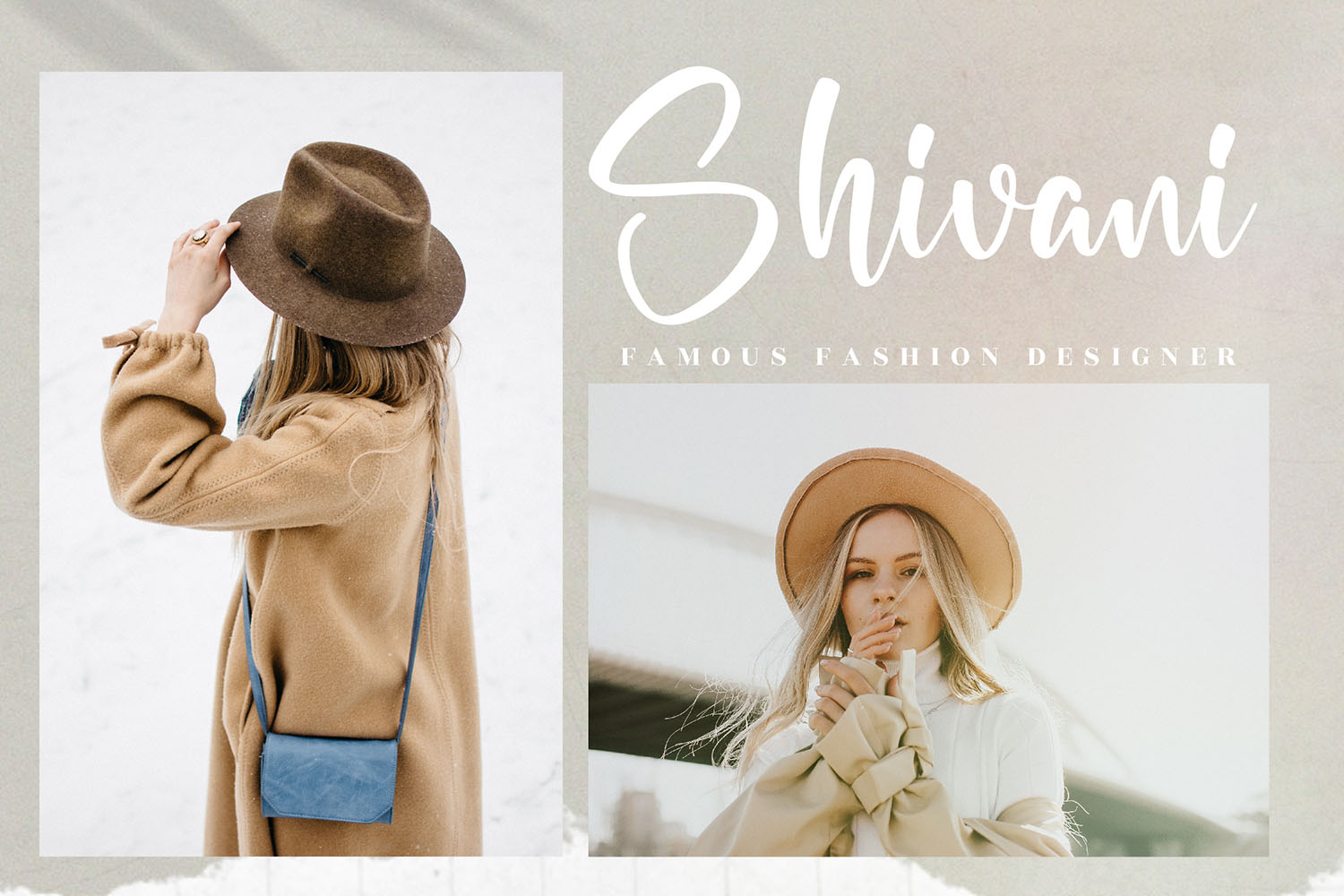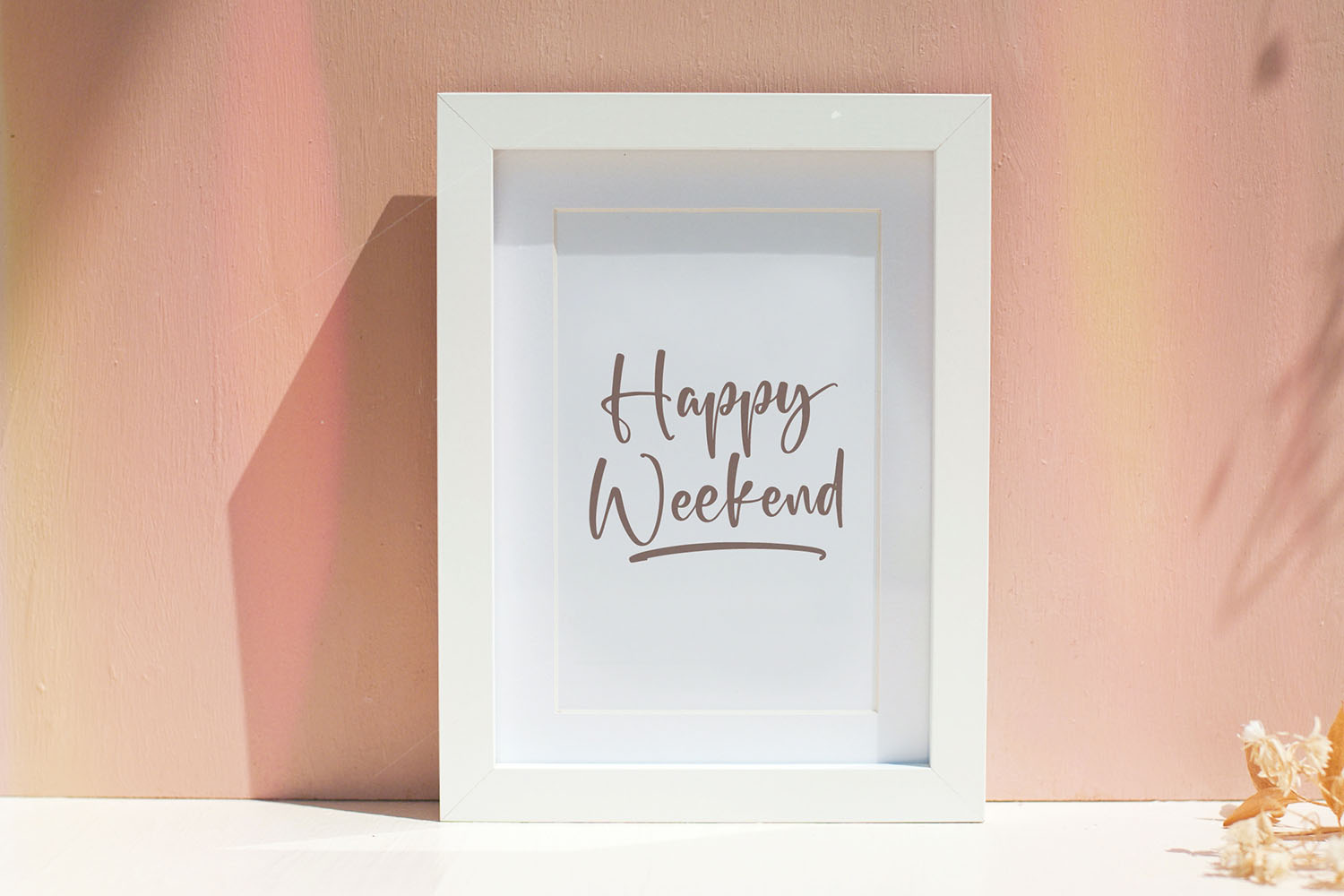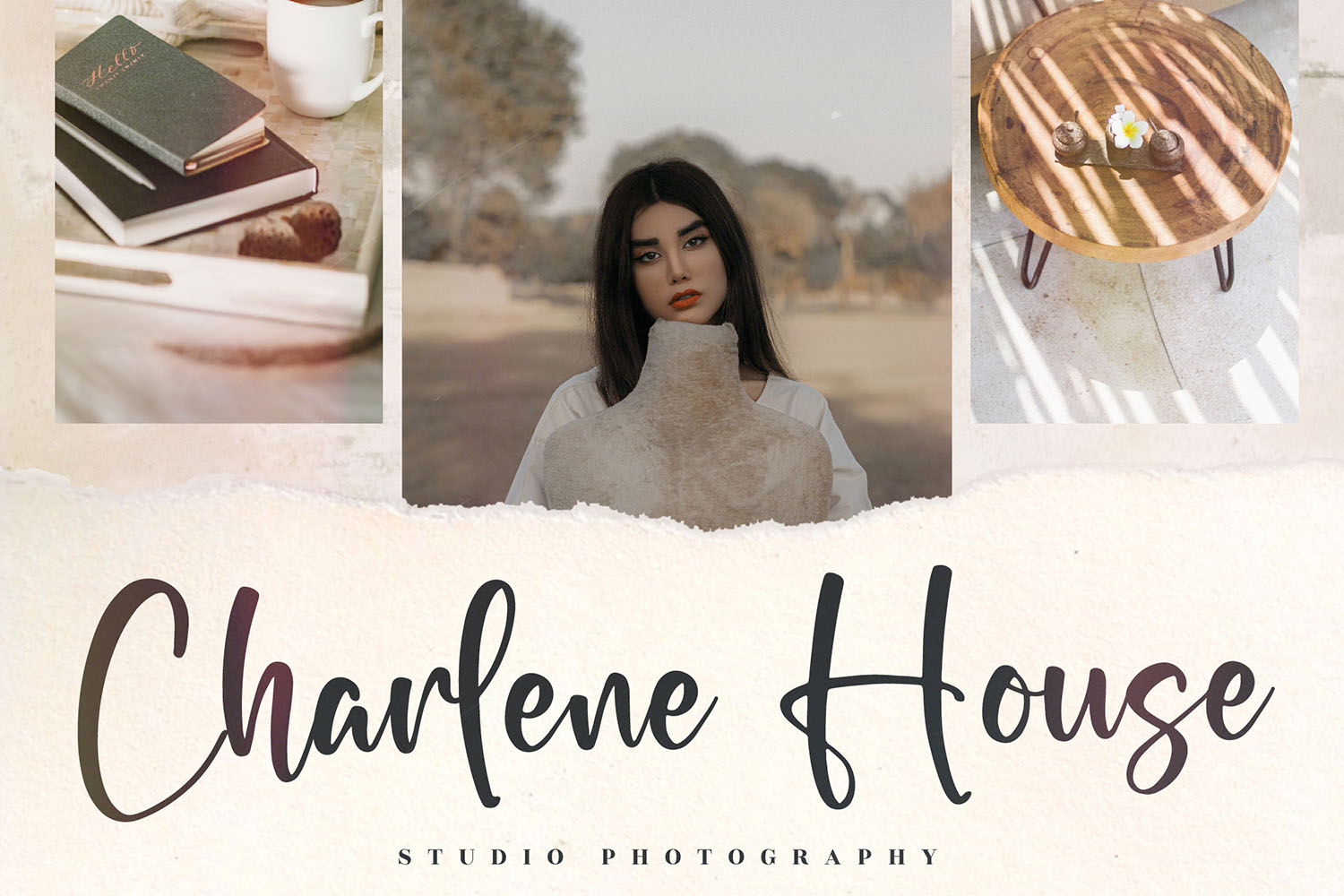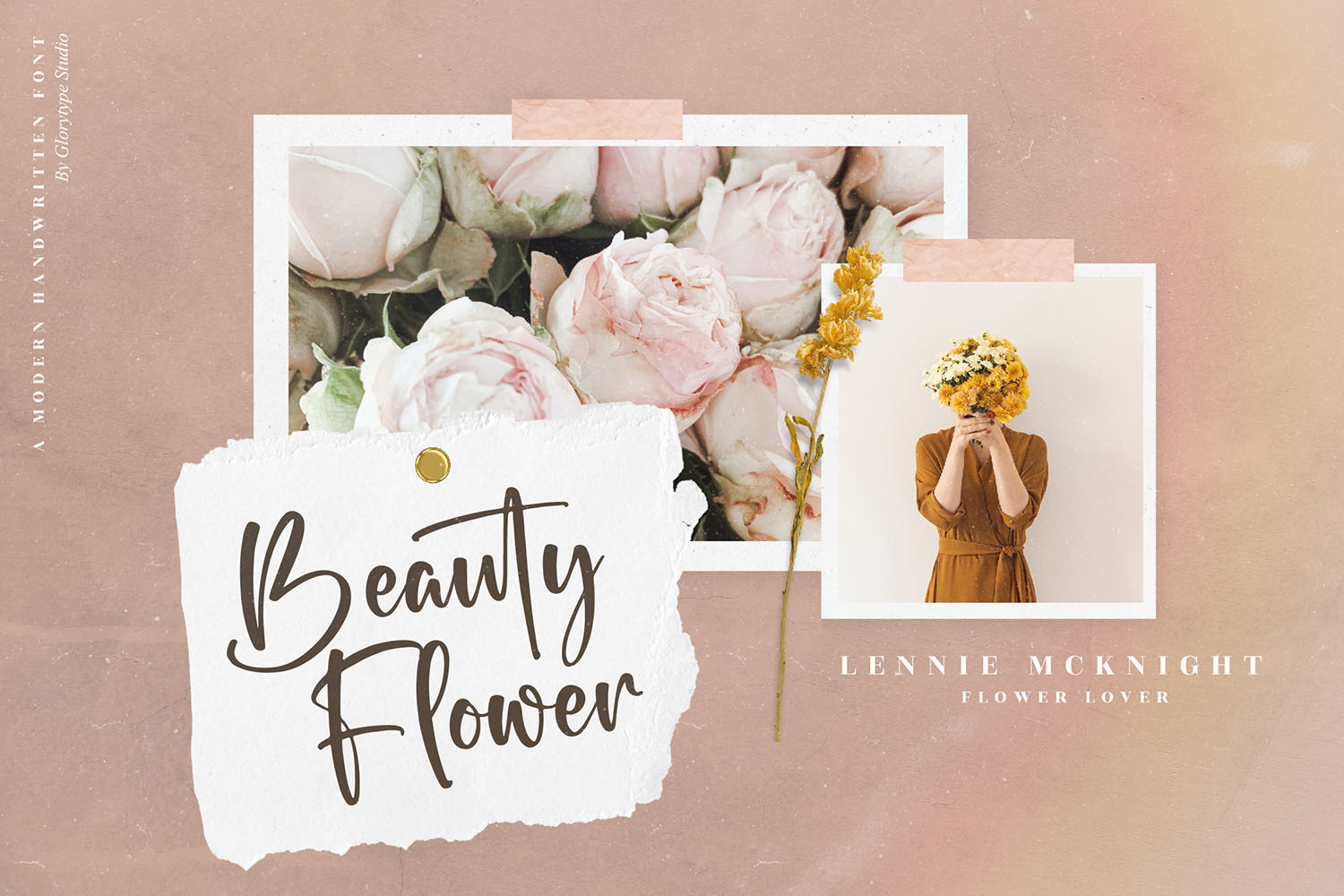
Happy Christiana Free Font
Happy Christiana Free Font is a beautiful and flowing script font. This free typeface was designed by a talented Glorytype Studio. If you like it don’t forget to check out the full version.